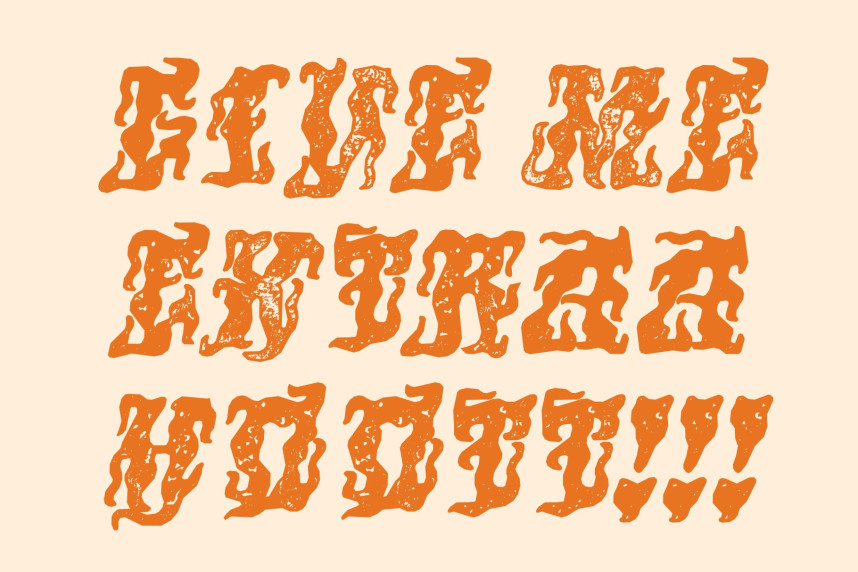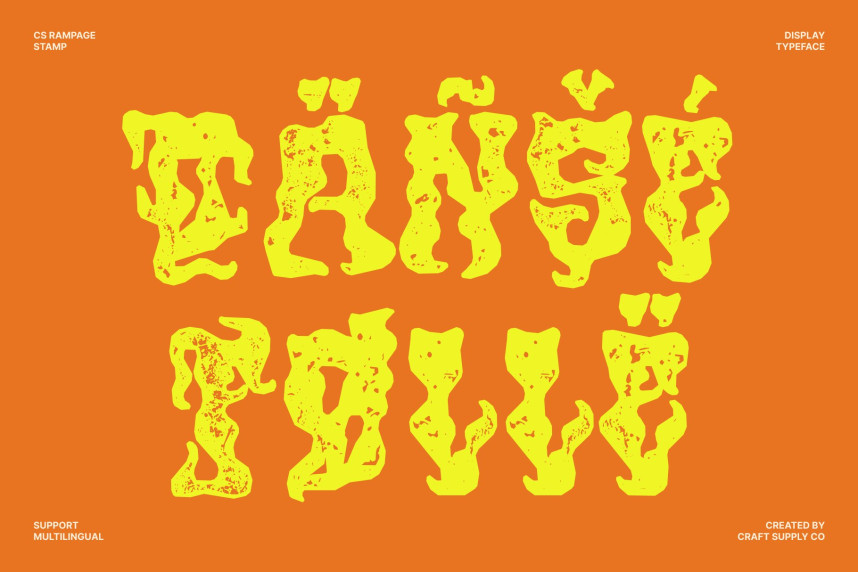
CS Rampage Stamp Font
CS Rampage Stamp Font – Psychedelic Display Font: Where Explosive Funk Meets Vintage Stamp Texture
Dynamic Experimental Forms with Vibrant Energy
This is a psychedelic display font designed to explode with movement, rhythm, and imagination. Built with dynamic funky lines and boldly curved experimental shapes, this typeface creates a visually energetic identity filled with creativity, freedom, and artistic expression. Every character feels alive and immersive, making the font perfect for standout creative projects and attention-grabbing display compositions.